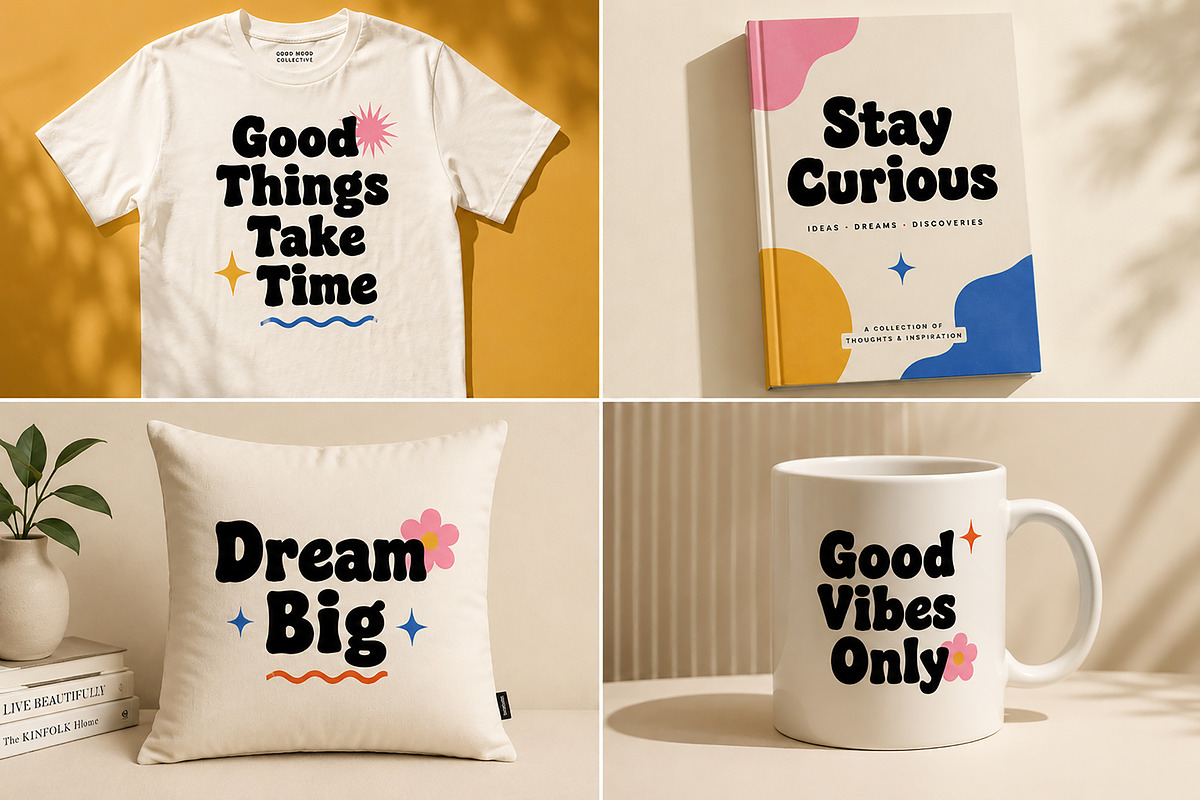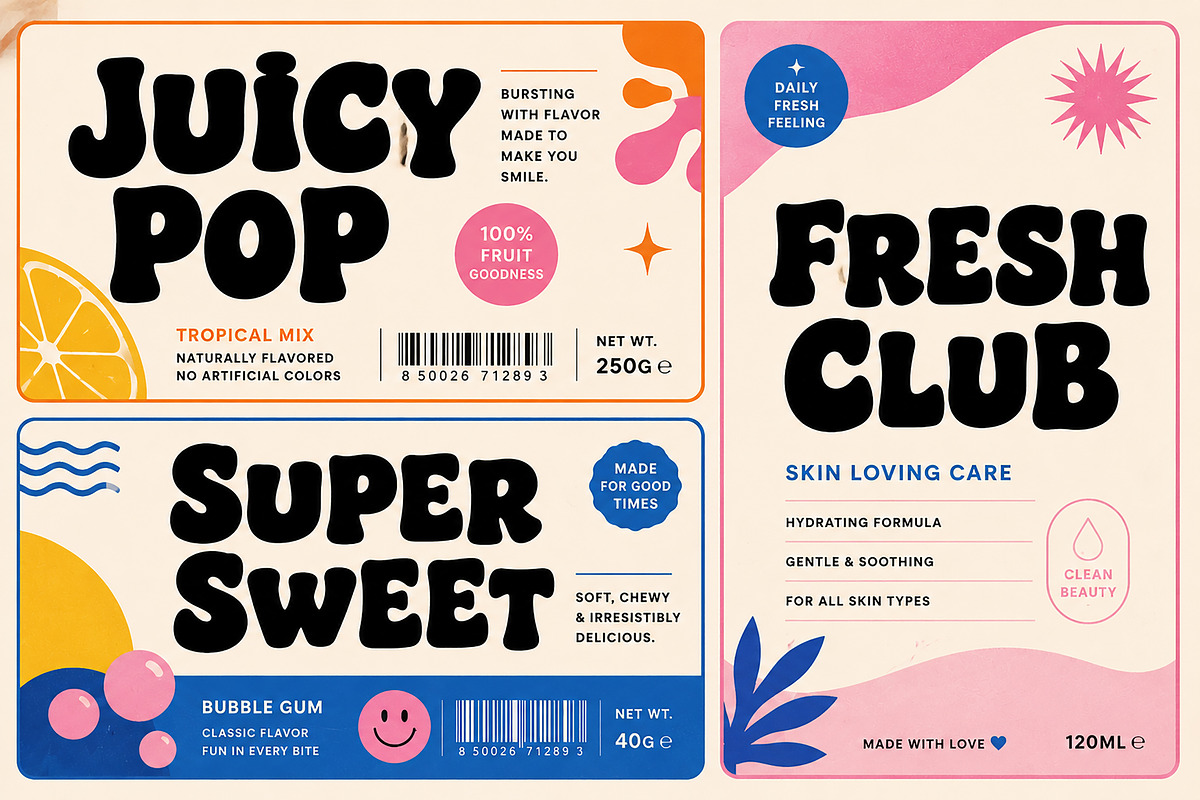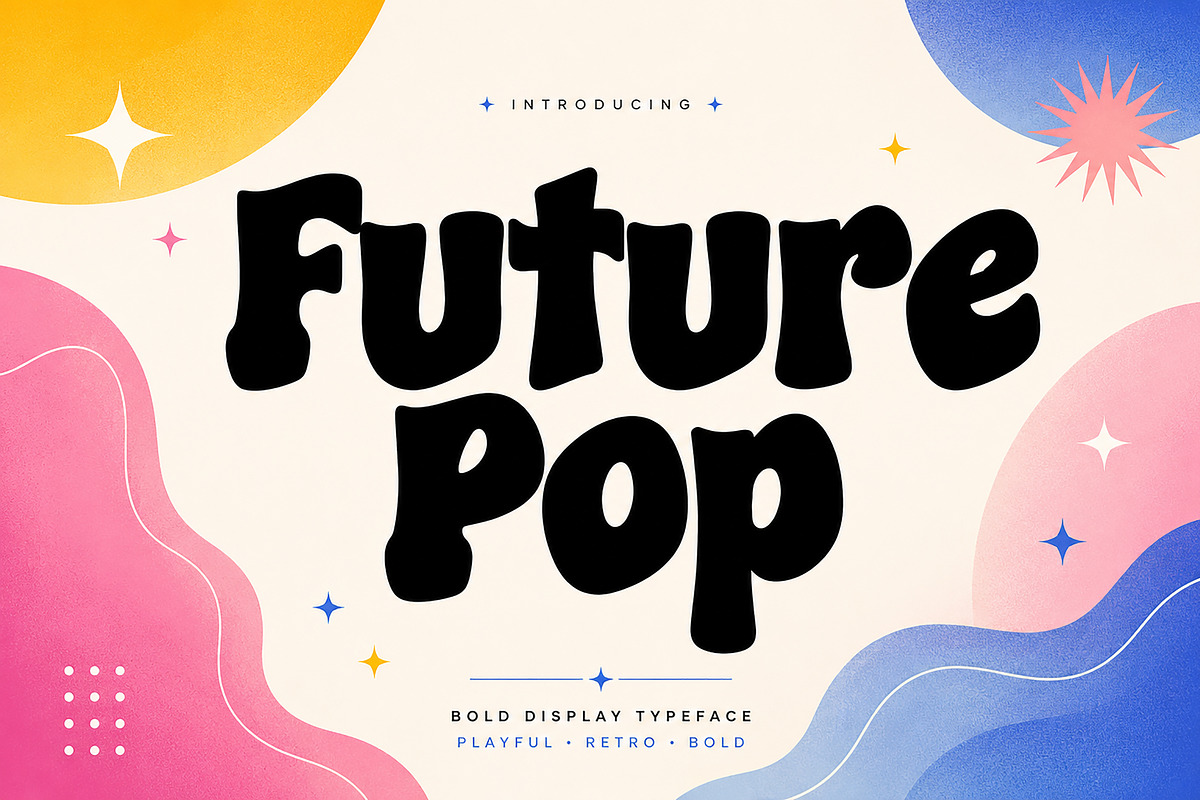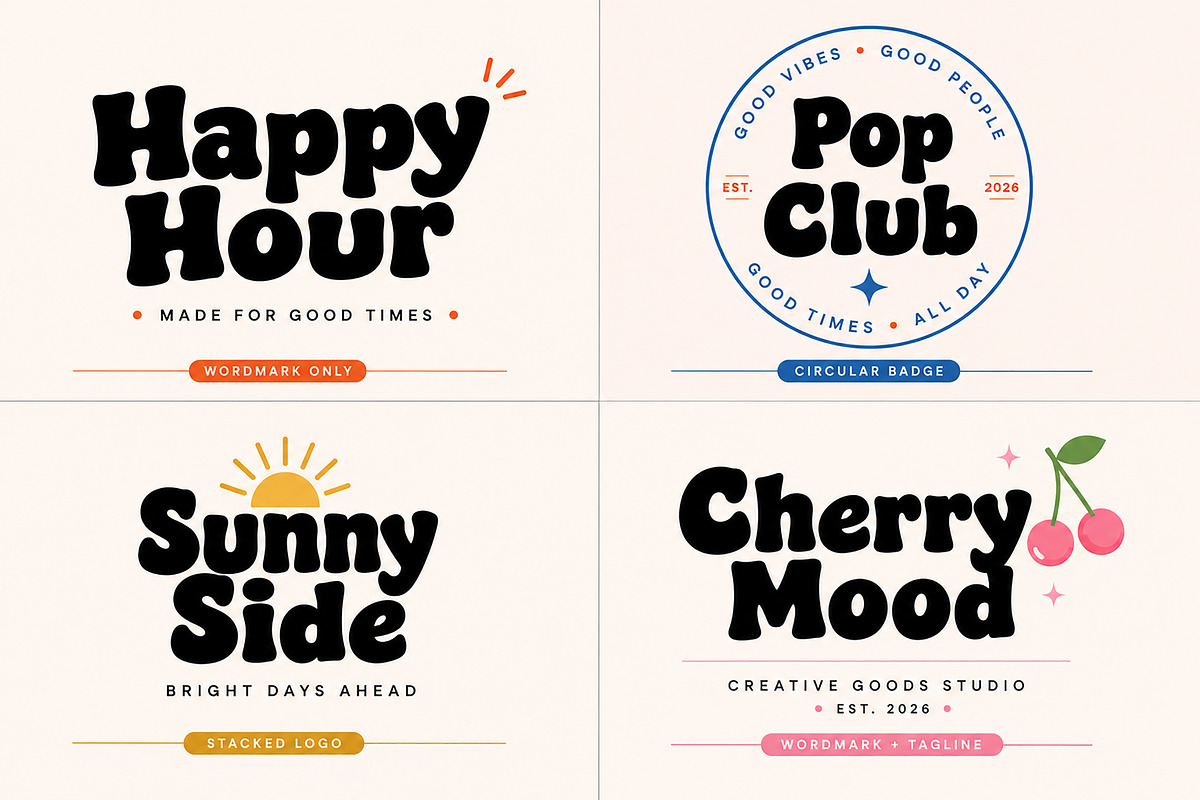
Future Pop
Future Pop – Bold Retro Display Font
Meet Future Pop, a bold and playful display font created to bring personality, energy, and retro charm to your creative projects. With its chunky shapes, smooth curves, and funky character, Future Pop delivers a strong visual impact while keeping a friendly and stylish appearance.
Inspired by retro pop culture, vintage typography, and groovy design trends, Future Pop works beautifully for projects that need attention-grabbing typography. Its expressive letterforms are especially effective for large headlines, logos, posters, packaging, and merchandise.
Whether you're building a playful brand identity, designing an eye-catching poster, creating trendy apparel, or developing colorful social media graphics, Future Pop gives your work a distinctive and memorable look.
Logo & Branding
Posters & Flyers
Packaging & Labels
T-Shirt & Apparel Designs
Book & Magazine Covers
Advertising & Headlines
Stickers
Mugs & Merchandise
Editorial Designs
Invitations & Greeting Cards
Retro & Vintage Projects
Lifestyle Branding
Creative Display Typography
Bold Retro Display Style
Playful & Funky Personality
Chunky, Expressive Letterforms